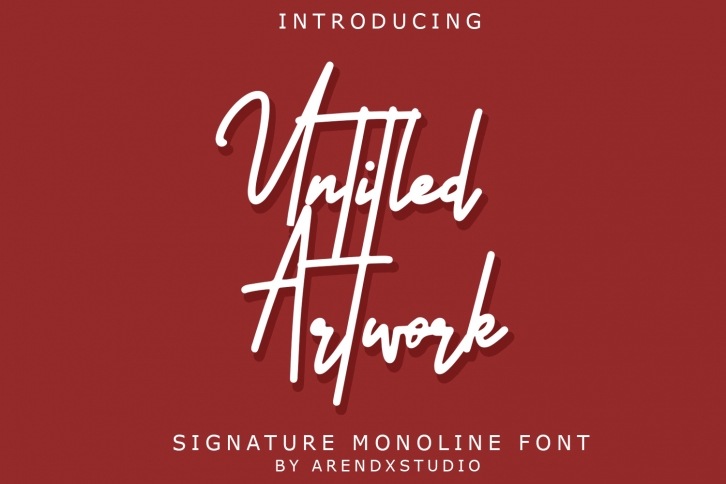
Untitled Artwork Signature is a great font that was designed by Arendxstudio. Imagine the amount of combinations you can create using this font! The archive is 4.54 MB and it was released on October 22, 2019. Untitled Artwork Signature looks beautiful on wedding invitations, greeting cards, logos, posters, labels, t-shirt designs, logos, business cards and is perfect for use in ink or watercolor works, fashion, magazines, packaging and food menus, children's books and more!